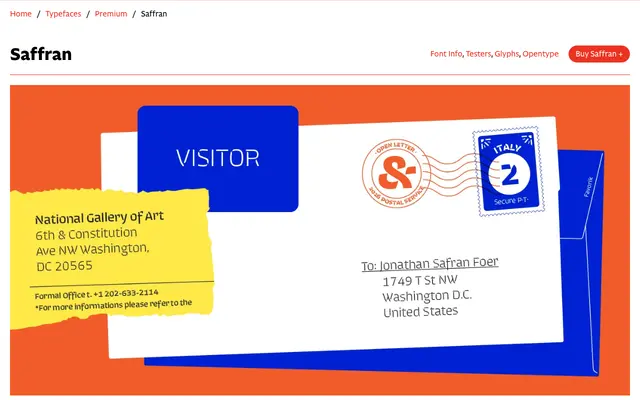
Saffran
CAST · Erasmo Ciufo · 2007
Saffran specimen from CAST
A squarish stencil sans by Erasmo Ciufo, drawing on Eurostile's geometric structure to maximise counter space and aid legibility at small sizes.
Originating from a 2007 type design course at Milan Polytechnic, the design takes Eurostile's near-square skeleton as its starting point and introduces stencil cuts at stroke junctures to reduce visual weight while adding a distinctive graphic quality. Six weights from Thin to ExtraBold make it flexible across branding, pharmaceutical leaflets, packaging and book captions. The stencil detail works equally well at small text sizes and at display scale, giving the family a wider range than most stencil designs.
A squarish stencil sans-serif inspired by Eurostile, with deliberate stencil cuts at junctures that serve both as structural lightening and as a display feature; the geometric, near-square letterforms align it with the display category.